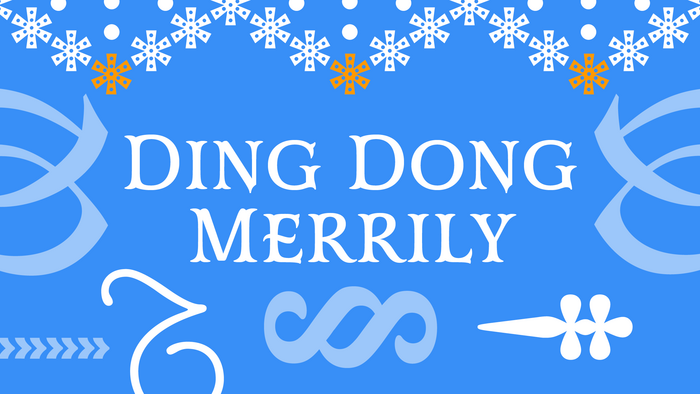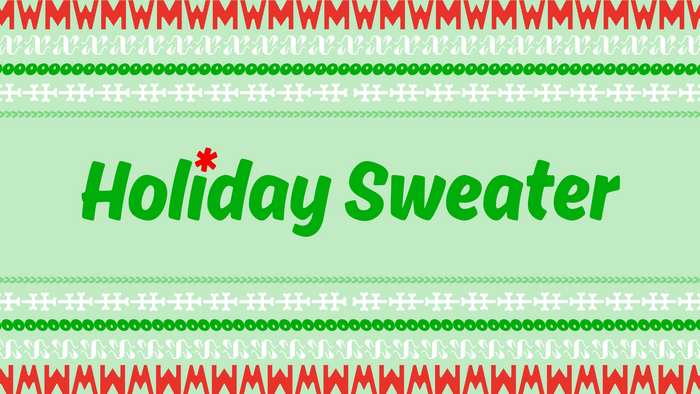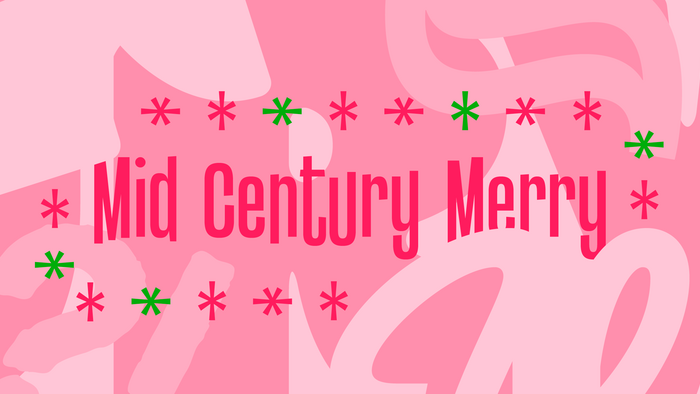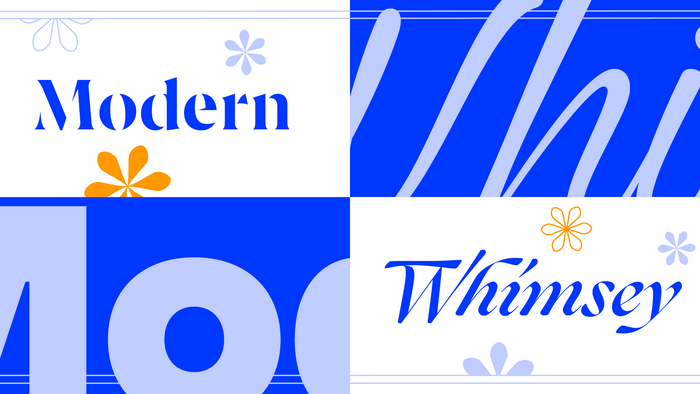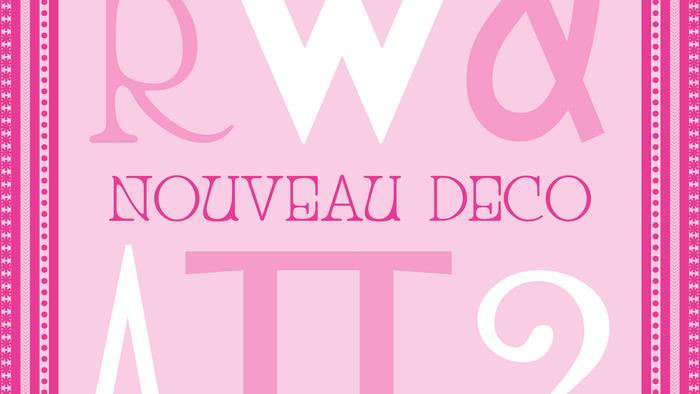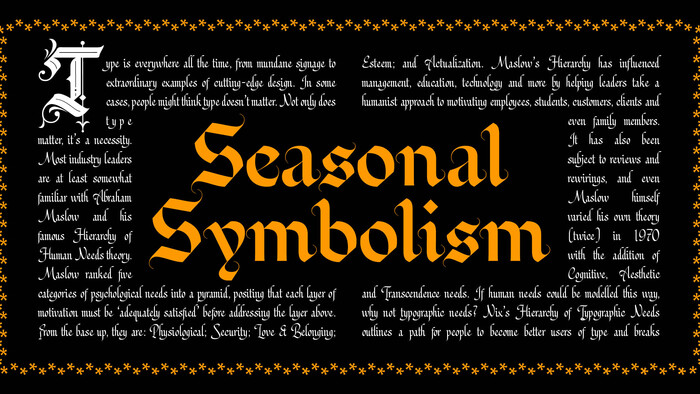
Festive fonts for your holiday campaigns.
The holiday season is a time of nostalgia, indulgence, and a touch of magic. It’s when traditions are cherished, belief is suspended, and new rituals are invented. From greetings cards to festive films, the season is both a celebration of family and reflection, and an unabashed exercise in joyful over-consumption. Everyone has their own version of “The Holidays,” and with it, their own way of celebrating the most wonderful time of the year.
For creatives and brands, this is a playground—a chance to mix timeless customs with reinvention, where tradition meets experimentation and delightfully unexpected twists.
At this time of year, it’s important look “festive” across countless touchpoints: from adverts to packaging, store displays to wrapping paper. Typography plays a starring role here, setting the tone and instantly capturing attention.
That’s why we’ve curated a collection of festive fonts: some tried-and-true classics guaranteed to resonate, and a few surprising “Christmas crackers” for those looking to stand out. Indulge in our Holiday Font collection—and discover the perfect voice for your seasonal campaign.
1. Seasonal Symbolism.
Origins: Religious Manuscripts  Gothic Forms (Medieval–18th c.)
Positioning: A selection of gothic inspired typefaces that recall intimate and solemn well wishes
View selected fonts: Black Valentine, Emerit Blackletter™, Mezalia, Mustopha, Triole 21
2. Ding Dong Merrily.
Origin: Victorian Christmas – Flourishes, Sentiment, and Ornament (19th c.)
Positioning: The Victorians popularized many of the holiday traditions we hold dear today. This diverse selection of typefaces celebrates the humor and irreverent Joy of the Victorian Holiday spirit.
View selected typefaces: Edwardian, Isabella, Lumiere, Mr Darcy, Novella
3. Nouveau Deco.
Origin: Early 20th Century – Festivity Meets Commerce
Positioning: The holiday season is when we let our hair down. The essence of seasonal revelry, glitz, glamour and celebration are captured in this joyous selection.
View selected typefaces: Baro, Cow Palace JNL, Marishka Roseville, Romeo, TBJ Orcherum Unique Ligatures
4. Mid Century Merry
Origin: Mid-Century Modern – Cheerful, Playful, Atomic
Positioning: Groovy, joyous, and warm. Decorate your messaging with these handcrafted-inspired typefaces, sure to bring a human touch.
View selected typefaces: Avril, Extra Chunk Please, Martellas, MGT Vallery Hills, Wolpe Fanfare
5. Holiday Sweater
Origin: Late 20th Century – Nostalgia & Maximalism
Positioning: Bring a touch of that holiday sweater feel to your messaging with this selection of playful and slightly kitsch typefaces.
View selected typefaces: Ahkio, Candice, Forjada, Music Nouveau JNL, Proximity
6. Modern Whimsey
Origin: 21st Century – Minimalism vs. Whimsy
Positioning:  Expressive, but light touch, typefaces that feel nostalgic, clean, and contemporary.
View selected typefaces: Alecrim, Ariata, Ogg Display, The Hand, Vintage Millenia